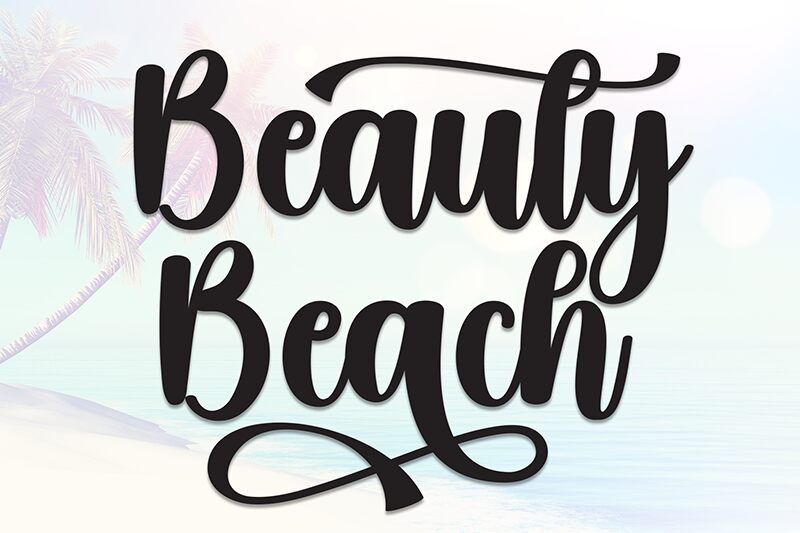
Beauty Beach
\nBeauty Beach font by Scratchones showcases expressive brush-style strokes for a flowing, modern script style. Uniform in weight and bold in appearance, Beauty Beach is equipped with attractive curves and contemporary calligraphic enhancements that beautify logos or headings.
Common applications of this hand-crafted font include natural product packaging design, fashion branding, beauty products typography, and various types of signage. Alternative implementational ideas are T-shirts, cards, blog headers, magazines, posters as well as advertising campaigns.